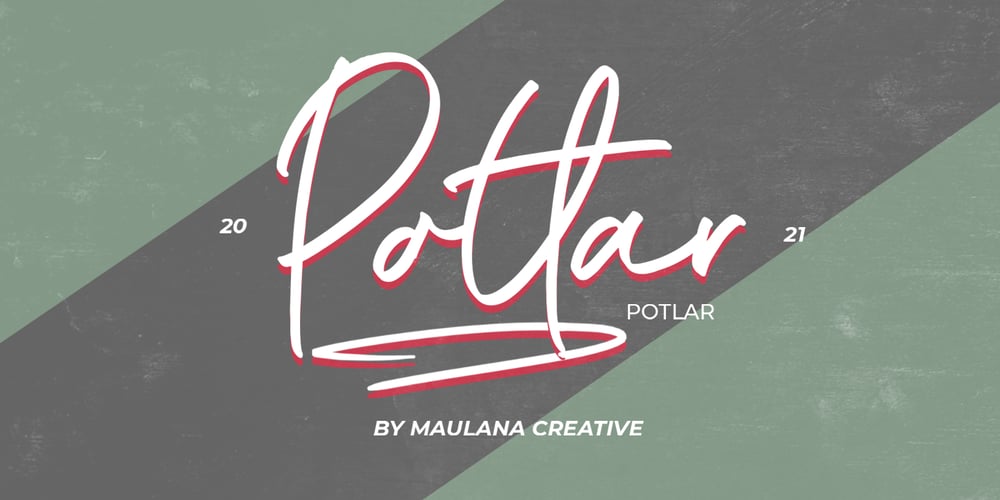
Potlar
Potlar font
Potlar Font Family was designed by Gilang Maulana and published by Maulana Creative. Potlar contains 1 styles and family package options. Give your designs an authentic handcrafted feel. “Potlar Signature Script Font” is perfectly suited to poster, stationery, logo, typography quotes, magazine or book cover, website header, clothing, branding, packaging design and more.Thanks for use this font ~ Maulana